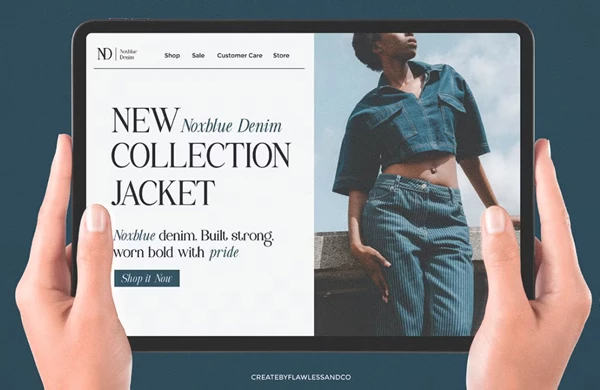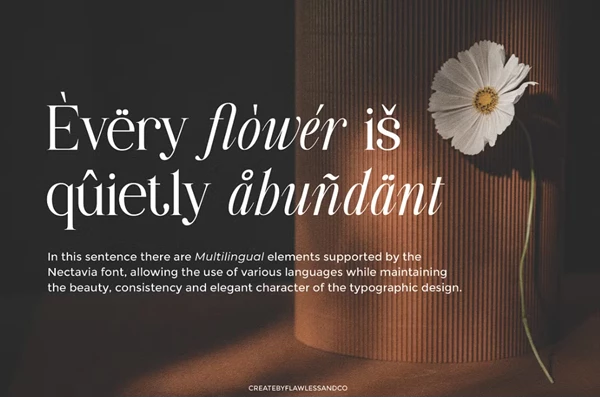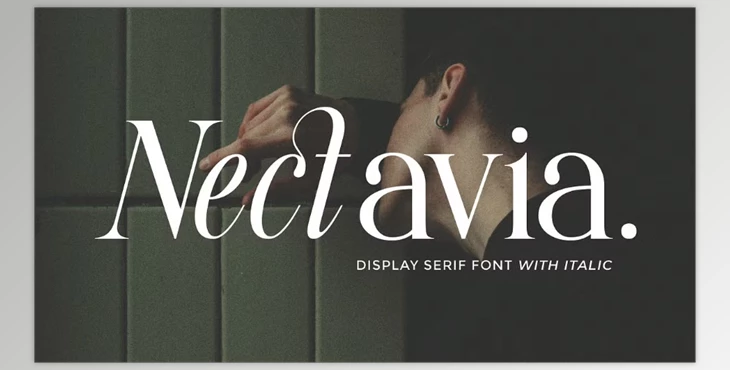
Nectavia - Display Serif Font:
Nectavia is a stylish serif display typeface that emanates smooth curves, refined shapes, and a modern, simplistic design. Nectavia balances traditional serif typefaces with modernity and includes a slightly contrasting italic. This makes Nectavia ideal for branding, luxury-inspired editorial layouts, packaging, weddings, and all high-end endeavors. Use it for headlines, logos, or impressive print applications; Nectavia is the perfect balance between class and charm, bringing a consistent source of inspired design to an archetype of unforgettable expression.
Some great features of Nectavia - Display Serif Font:
- Uppercase & Lowercase
- Alternates & Ligatures
- Numerals & Punctuation
- Multilingual Support
Nectavia is ideal for anyone creating refined projects either personally or professionally. From high-end brands, wedding acquisitions, luxury editorial layouts, to versatile logos and premium packaging endeavors, Nectavia is a go-to font for brand and logo designers alike. The refined shapes and timeless charm of Nectavia support and elevate visual identities created with this typeface. It can help make the ultimate brand identity for whichever project it will enhance with an incredibly sophisticated yet versatile appearance.
Best Uses
- Brand identities and professional logo design
- Luxury product packaging and premium stationery
- Wedding invitations and elegant event materials
- Editorial layouts, magazines, and book covers
- Social media graphics and lifestyle branding
- Business presentations and corporate identity projects